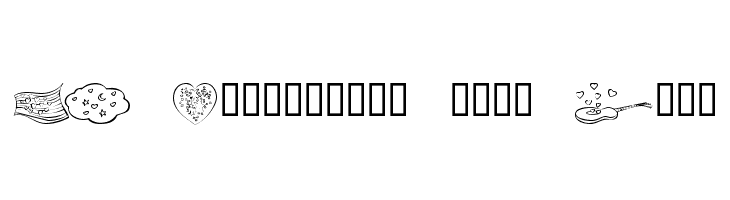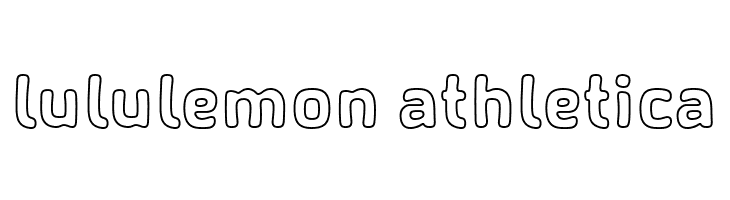
A playful, outlined font with a hand-drawn, whimsical style.
A bold, Gothic-style font with intricate and angular letterforms.
A modern, geometric font with bold, clean lines and excellent readability.
A whimsical collection of playful doodle-style illustrations.
A bold, geometric font with a modern and structured appearance.
A bold, geometric font with sharp, angular edges and a modern style.
A charming and elegant script font with flowing, cursive letterforms.
设计师偏爱 MixOutline, Ganz Grobe Gotisch, Wishmaster Credits DEMO, Egmont Text and Pea Jelene's Doodles,因为其造型干净、适用范围广—— 从品牌识别到落地页、海报都能胜任。